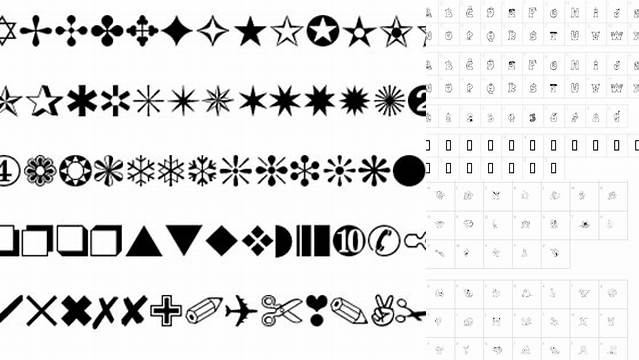
Hey guys! Are you looking to spice up your designs with some unique fonts? You've come to the right place! In this article, we're diving deep into the world of LMS Dingbats fonts, and how you can download them for free. We'll cover everything from what Dingbats fonts are, where to find them, and how to use them effectively in your projects. So, buckle up and let's get started!
What are Dingbats Fonts?
Before we jump into the free download aspect, let's quickly define what LMS Dingbats fonts actually are. Dingbats fonts, also known as symbol fonts, are unique typefaces that contain symbols and illustrations instead of letters and numbers. Think of them as a library of icons right at your fingertips! These can include anything from arrows and stars to more complex graphics. LMS Dingbats fonts are particularly useful for adding visual flair to your documents, websites, and graphic designs without needing to scour the internet for individual images. They are scalable, easy to use, and can significantly enhance the aesthetic appeal of your work. The versatility of Dingbats fonts makes them a favorite among designers and creatives looking for a quick way to add visual elements to their projects.
Why Use LMS Dingbats Fonts?
Why should you even bother with LMS Dingbats fonts, you might ask? Well, there are several compelling reasons! Firstly, they offer a fantastic way to add visual interest and break up text-heavy content. Imagine trying to make a presentation pop or a brochure stand out – Dingbats fonts can be your secret weapon. Secondly, they're incredibly versatile. You can use them for anything from bullet points and dividers to decorative elements and even simple illustrations. Plus, when you download LMS Dingbats fonts for free, you're getting access to a treasure trove of design assets without spending a dime. This is a huge win for students, freelancers, and anyone on a budget. Finally, Dingbats fonts are easy to use. Once installed, they function just like any other font on your computer, making them accessible to both design pros and newbies alike. So, if you're looking to elevate your design game, LMS Dingbats fonts are definitely worth exploring.
Using LMS Dingbats Fonts in Your Designs
Now that you've downloaded and installed your LMS Dingbats fonts for free, it's time to put them to work! The possibilities are pretty much endless, but let's explore some common and creative ways to use these fonts in your designs. One of the most straightforward applications is to use Dingbats as bullet points in lists. Instead of the standard dots, you can use stars, arrows, or other symbols to make your lists more visually appealing. They're also fantastic for creating dividers between sections of text, adding a decorative touch without being too overwhelming. For website design, Dingbats fonts can serve as icons for various elements, such as navigation menus, social media links, or contact information. In graphic design, you can use them to create unique patterns, borders, or even simple illustrations. The key is to experiment and see what works best for your project. Remember to choose Dingbats that complement your overall design aesthetic and don't distract from your core message. With a little creativity, LMS Dingbats fonts can be a game-changer for your design projects.
Best Practices for Using LMS Dingbats Fonts
To really make the most of your free download of LMS Dingbats fonts, it's helpful to follow some best practices. First and foremost, less is often more. While Dingbats fonts can add flair and personality to your designs, overusing them can lead to a cluttered and unprofessional look. Use them sparingly and strategically, focusing on areas where they can have the most impact. Another crucial tip is to ensure that the Dingbats you choose complement your overall design aesthetic. If you're working on a sleek and modern project, opt for simple and minimalist symbols. For a more whimsical design, you might choose playful and decorative Dingbats. Pay attention to the size and scale of your Dingbats as well. They should be proportional to the surrounding text and elements. Avoid using Dingbats that are too large or too small, as this can throw off the balance of your design. Additionally, consider the color of your Dingbats. Using colors that contrast with the background can make them pop, but make sure the color scheme is consistent with your overall design. By following these best practices, you'll be able to use LMS Dingbats fonts effectively and create visually stunning designs.
Examples of Creative Uses for LMS Dingbats Fonts
Need some inspiration? Let's dive into some examples of creative ways you can use LMS Dingbats fonts. Imagine you're designing a wedding invitation. Instead of using plain bullets for the event details, you could use elegant floral Dingbats to add a touch of romance. Or, if you're creating a travel brochure, you might incorporate airplane or globe Dingbats to enhance the theme. For a children's book, playful animal or star Dingbats can make the pages more engaging and fun. Dingbats fonts are also fantastic for creating infographics. You can use them to represent data points, illustrate concepts, or add visual cues. In web design, they can serve as custom icons for buttons, menus, or social media links, giving your site a unique and professional look. Think about using Dingbats to create patterns or backgrounds for your designs. By repeating a simple Dingbat, you can create a subtle yet eye-catching texture. The key is to think outside the box and experiment with different ways to integrate Dingbats into your projects. With a little imagination, you can transform ordinary designs into extraordinary ones using LMS Dingbats fonts.
The Future of Dingbats Fonts in Design
What does the future hold for Dingbats fonts in the world of design? Well, it looks pretty bright! As design trends continue to evolve, the need for unique and expressive visual elements will only increase. Dingbats fonts offer a versatile and accessible way to add personality and flair to a wide range of projects. With the rise of digital design and the increasing importance of visual communication, Dingbats are becoming more relevant than ever. We can expect to see designers pushing the boundaries of how Dingbats are used, incorporating them into everything from branding and marketing materials to user interfaces and interactive experiences. The development of new and innovative Dingbats fonts is also likely to continue, with designers exploring new styles, themes, and functionalities. Imagine Dingbats that animate or respond to user interactions – the possibilities are endless! As technology advances, we may even see the integration of Dingbats into virtual and augmented reality environments. So, if you're looking to stay ahead of the curve in the design world, it's definitely worth keeping an eye on the evolution of Dingbats fonts.